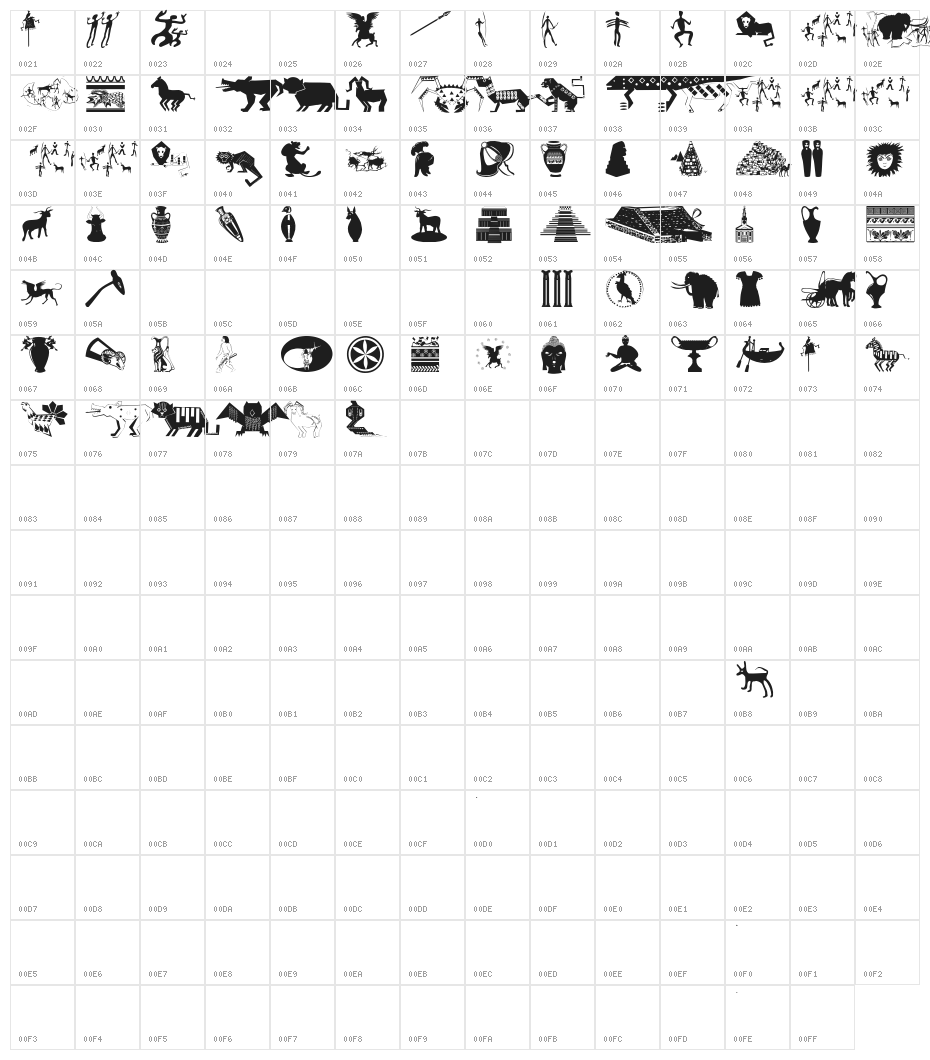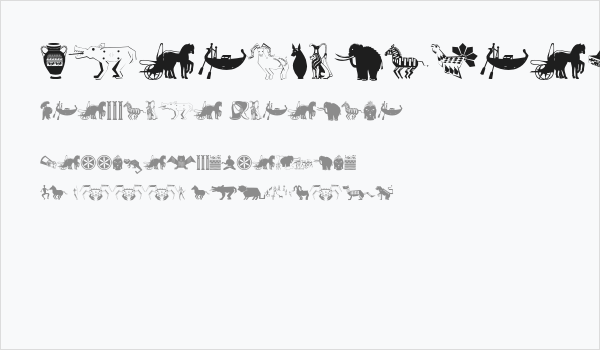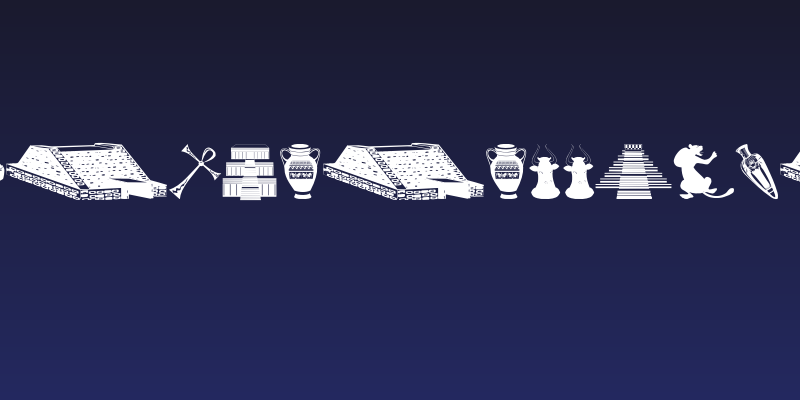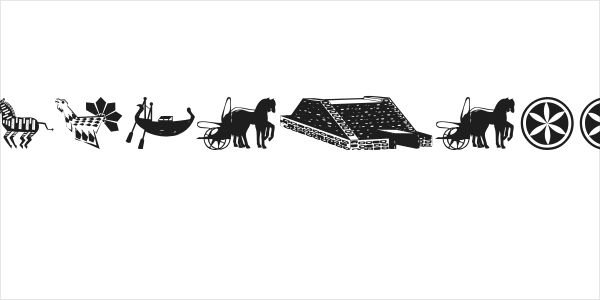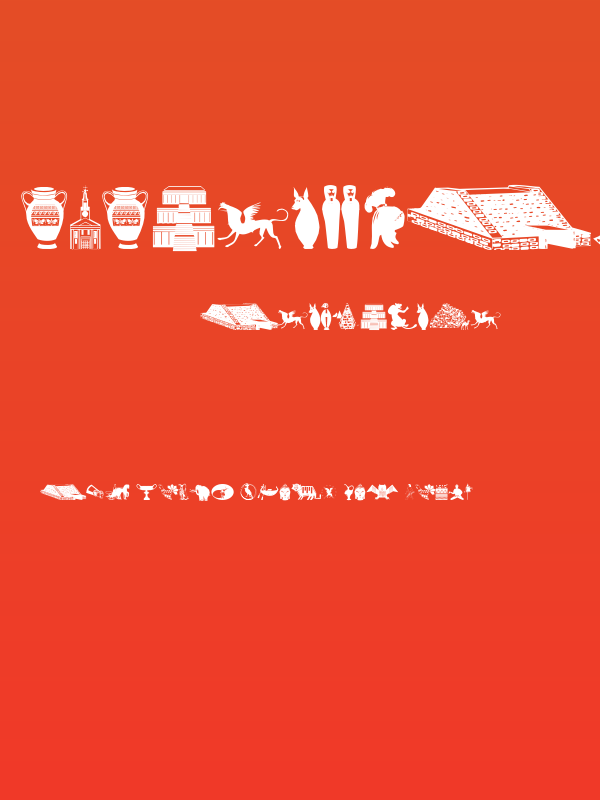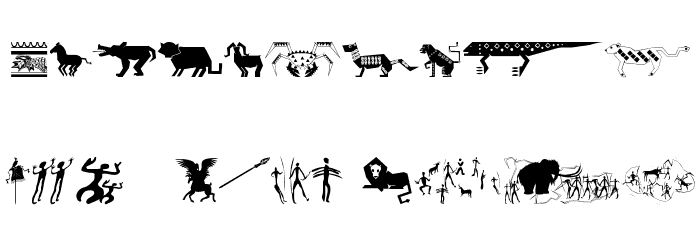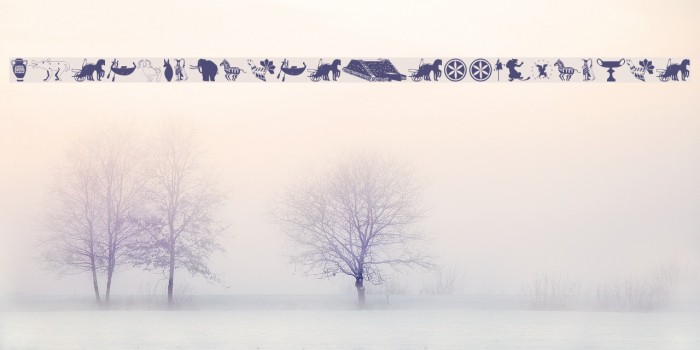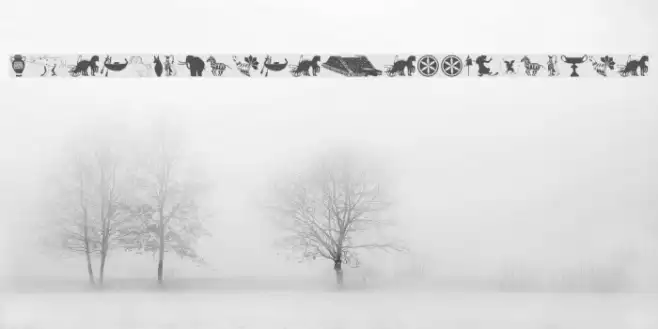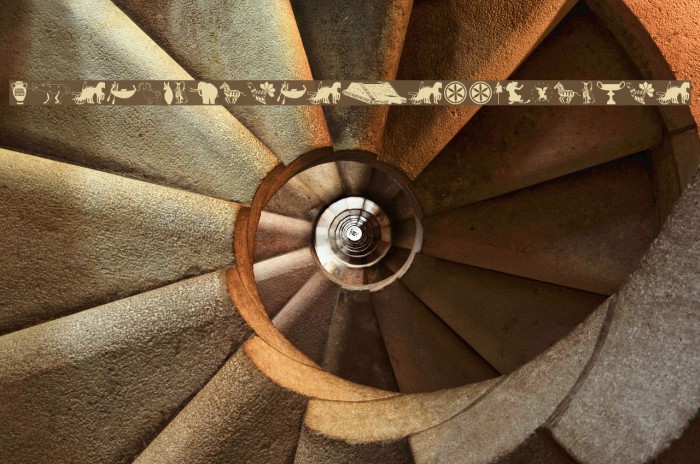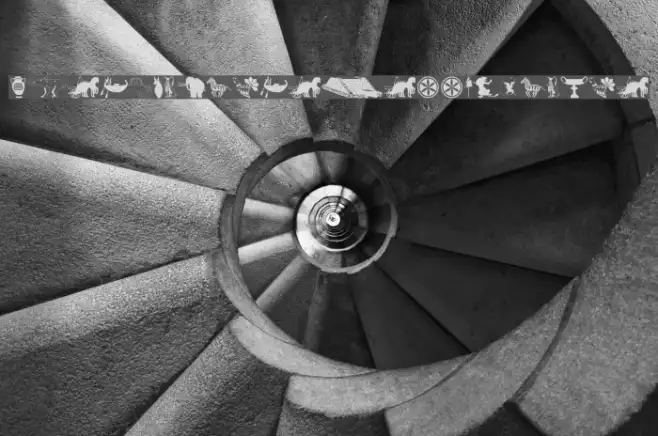
EveryPictureTellsAntique Font
EveryPictureTellsAntique Description
A decorative display font composed of intricate pictograms and silhouettes inspired by ancient art, archaeology, and prehistoric motifs. Each character is represented by a unique illustration, including animals, pottery, mythological figures, and ancient artifacts, rendered in bold black and white with high detail.
| Overall Style | Decorative, Ancient, Thematic |
| Use Case | Logos, Posters, Headlines, Themed graphics |
| Proposed Projects | Museum branding, educational materials, history-themed posters, book covers, archaeological exhibits, creative invitations. |